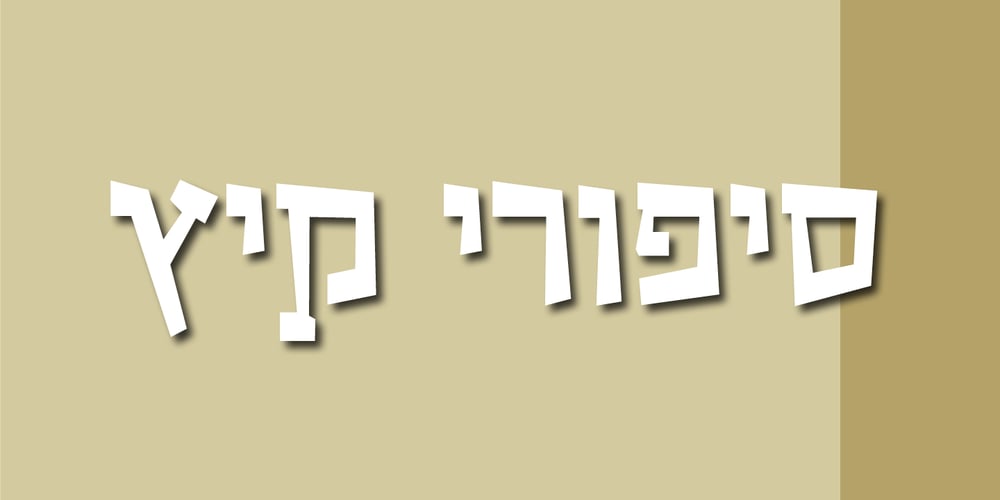
Maarav Parua MF Font Family was designed by Eliyahu Fried and published by Masterfont. Maarav Parua MF contains 2 styles and family package options. So funny and happy typeface that has its own rhythm to make your type stand out.